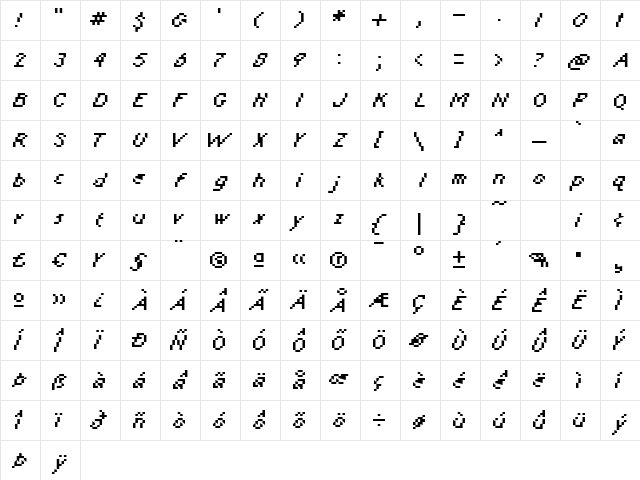
KareSixDots Italic Free Font
KareSixDots Italic
Design Context for KareSixDots
KareSixDots is rooted in pixel-grid construction, making it a natural fit for game UI, retro computing aesthetics, and digital nostalgia projects. The slanted form adds forward momentum and visual energy.
Pro Tip: Use KareSixDots at sizes that align with its pixel grid for the sharpest rendering - scaling to non-integer multiples can introduce unwanted blur.